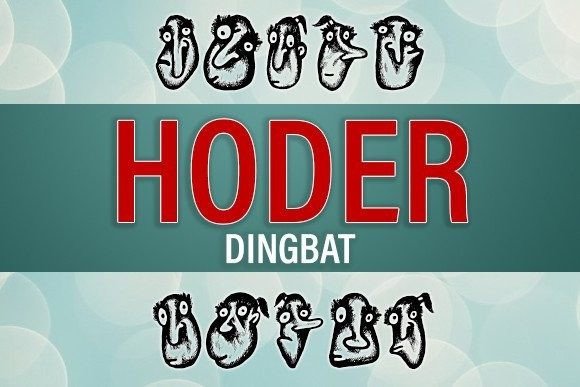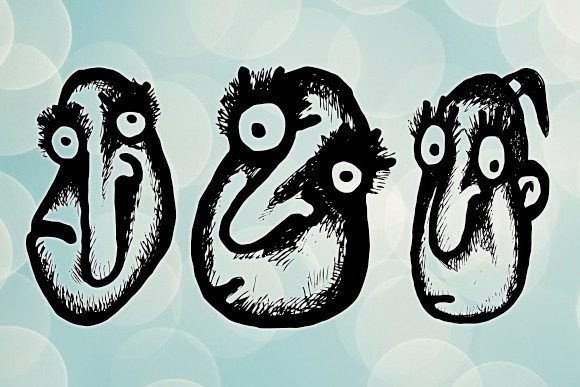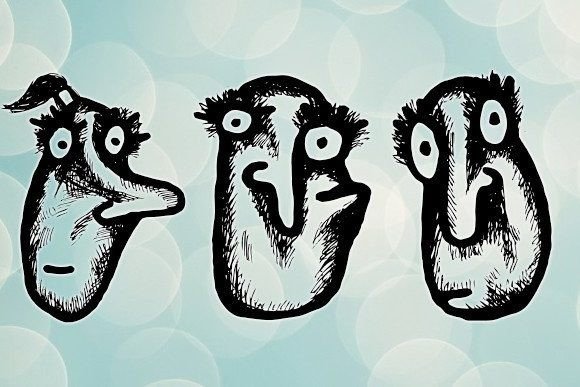
Hoder Font
ABOUT HODER FONT
“Hoder” is an extraordinary dingbat font that offers a distinctive collection of symbols and icons. This font is designed to add a unique touch and a sense of creativity to your designs, making it a perfect choice for various design applications.
With “Hoder,” you have a wide range of symbols and icons at your disposal. From abstract shapes to intricate patterns, from playful illustrations to decorative elements, this dingbat font offers a diverse selection of visual elements to enhance your designs. Each symbol is carefully crafted, showcasing a unique style and adding a sense of intrigue and creativity to your visuals.
By incorporating “Hoder” into your designs, you can instantly create an eye-catching and visually captivating composition. The symbols and icons bring a sense of uniqueness, personality, and creative flair, making your flyers, shirts, and posters stand out from the crowd. Whether you’re designing for a modern event, a creative campaign, or simply want to add a touch of artistic expression, “Hoder” provides the perfect decorative elements.
The versatility of “Hoder” allows you to use the symbols and icons in various creative ways. You can create interesting patterns, use them as design elements, or even combine them to create custom illustrations. Their abstract nature and unique designs make them visually intriguing and versatile for different design styles.
“Hoder” is an excellent choice for projects that seek to convey themes of creativity, innovation, and artistic expression. Whether you’re designing for a music festival, an art exhibition, or any other event that celebrates creativity, this dingbat font can help you achieve a distinct and visually captivating look.
So, embrace the uniqueness of “Hoder” and let it add a touch of creativity to your designs. Incorporate these intriguing symbols and icons into your flyers, shirts, and posters, and let them infuse your projects with a distinctive and artistic flair.